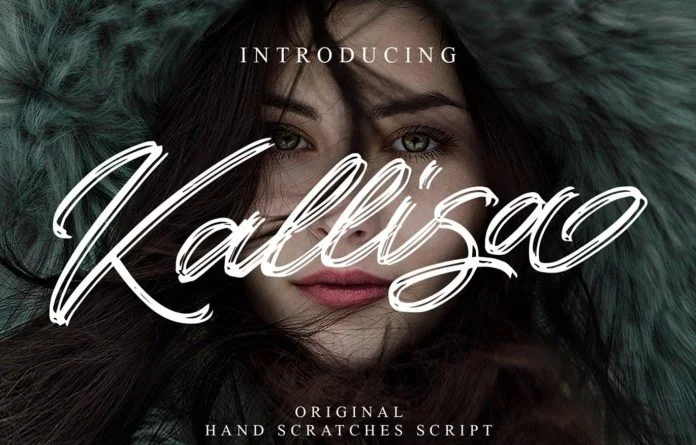
Kallisa Font Free Download
Kallisa Font is perfect for elegant branding, luxury fashion labels, high-end cosmetics, sophisticated invitations, premium jewelry catalogs, upscale restaurant menus, boutique hotel materials, art gallery exhibitions, refined editorial design, exclusive event signage, designer portfolios, and prestigious corporate identities.
What makes Kallisa Font exciting is its sophisticated refinement that effortlessly combines classical elegance with contemporary luxury aesthetics through meticulously crafted letterforms. This exquisite typeface embodies timeless grace and modern sophistication, creating a distinctive presence that speaks to discerning audiences seeking quality and exclusivity. The font's balanced proportions and subtle design details convey premium positioning while maintaining exceptional readability across various luxury applications. Its versatile character allows seamless integration into both traditional and contemporary design contexts, making it perfect for brands that value heritage craftsmanship and innovative design thinking.
The Kallisa Font family includes light, regular, medium, and bold weights, each available with corresponding elegant italic styles. The comprehensive family features stylistic alternates, refined ligatures, sophisticated swashes, and premium ornamental elements that enhance the font's luxury character and provide designers with extensive creative flexibility.
Whether you're developing prestigious brand identities, creating luxury marketing materials, or designing exclusive publications, Kallisa Font Free Download delivers the sophisticated elegance your premium projects demand. This exceptional typeface excels in high-end environments where refinement and visual distinction are crucial for brand positioning and audience perception. The font's luxurious qualities work magnificently across digital platforms and premium print applications, making it an indispensable asset for designers serving affluent markets. Luxury brands and elite design agencies choose this font for its ability to communicate exclusivity while maintaining perfect legibility and professional appeal. The extensive character set supports multiple languages and includes specialized luxury symbols, expanding its versatility for international premium market applications. Professional typographers appreciate its meticulous craftsmanship and attention to detail in every glyph, ensuring consistent luxury expression. When you incorporate this exceptional typeface into your prestigious communications, you're investing in a typography solution that elevates brand perception and creates lasting impressions through refined visual storytelling that resonates with affluent audiences and maintains premium positioning in today's competitive luxury marketplace, ensuring your brand communicates sophistication and exclusivity.